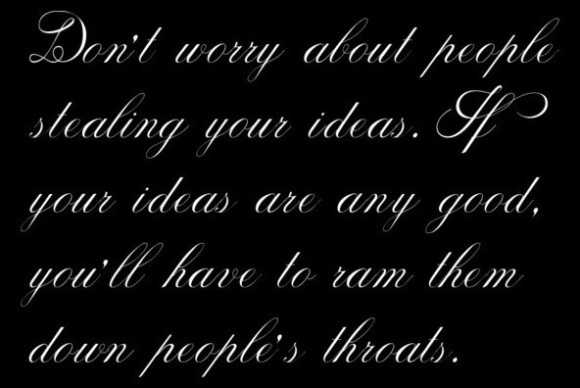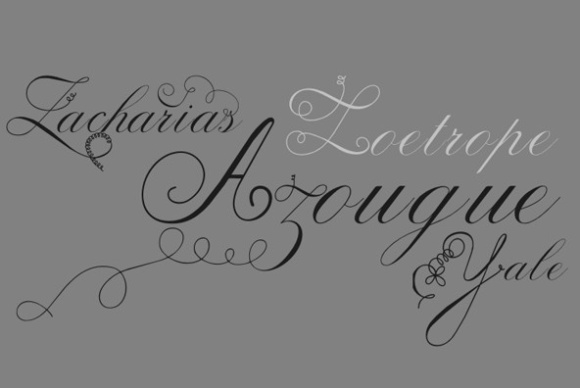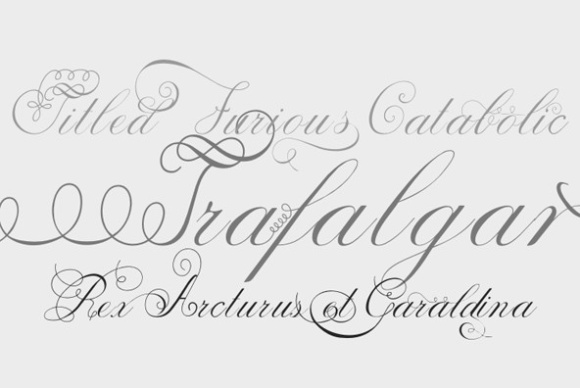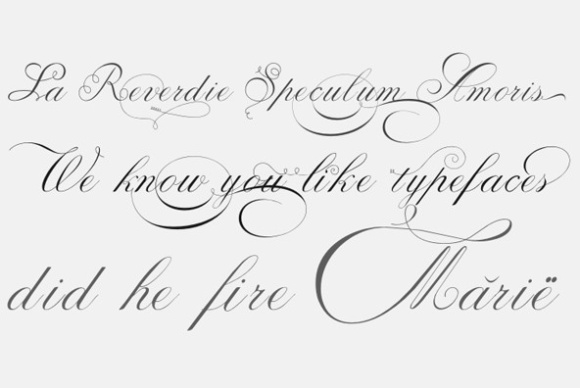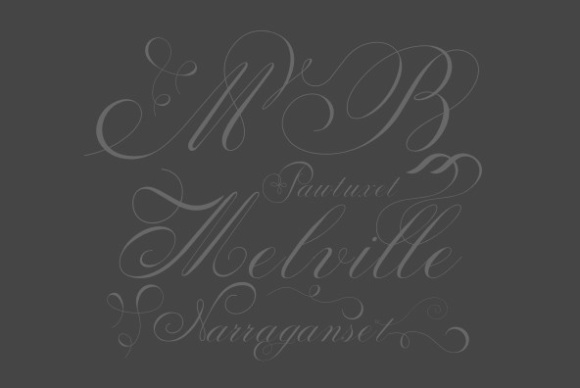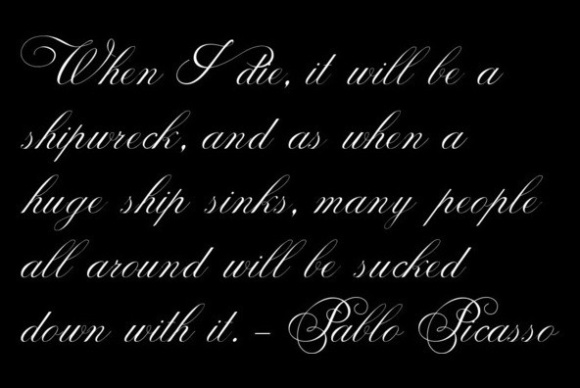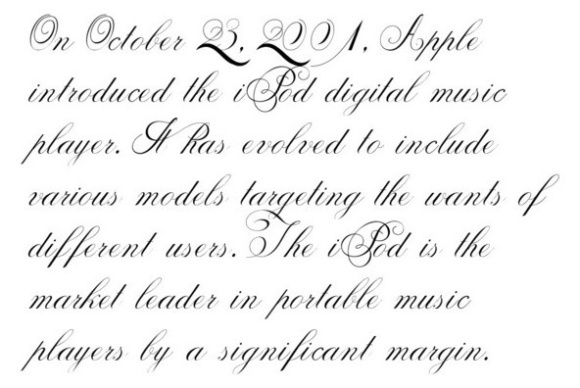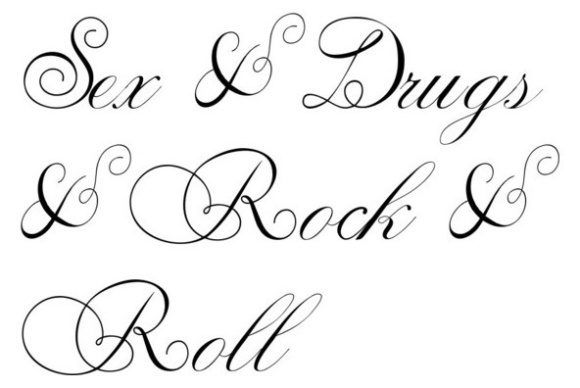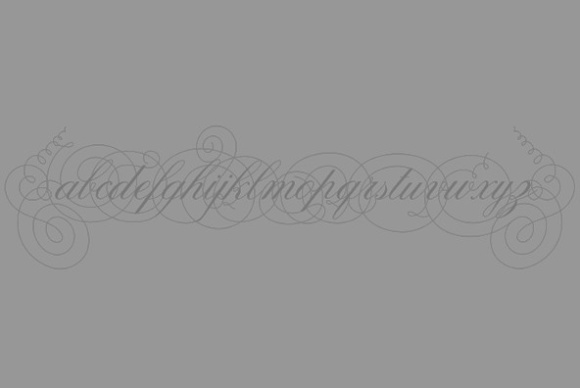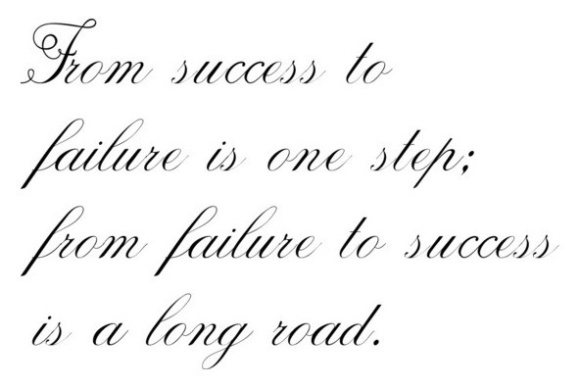
Penabico Font
About Penabico Font
Penabico is a stunningly swashy and ornate display script font, perfect for designs that need a nuanced and calligraphic feel. This font has a stunning presence, and can give your projects a luxurious appeal.